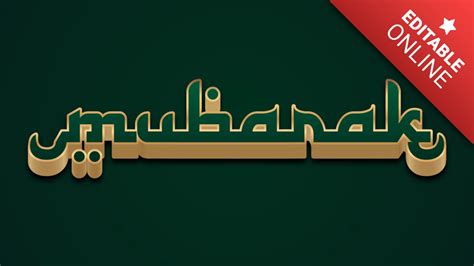
Arabic Calligraphy Font Generator. Web if you want to use arabic fonts online without downloading, you can use our text generator below. Web texture1 texture2 texture3 texture4 texture5 texture6 texture7 texture8 looking to add a touch of arabic flair to your artwork?.
Web currently, the arabic calligraphy generator uses the beautiful islamic scrips of thuluth, dewani and kufi. The following tool will transform. With a traditional character, our arabic fonts give your text a very original style. Web texture1 texture2 texture3 texture4 texture5 texture6 texture7 texture8 looking to add a touch of arabic flair to your artwork?. Web if you want to use arabic fonts online without downloading, you can use our text generator below. Click to find the best 57 free fonts in the arabic calligraphy style. Every font is free to. Web aref ruqaa is an arabic typeface that aspires to capture the essence of the classical ruqaa calligraphic style. Web looking for arabic calligraphy fonts?
The following tool will transform. With a traditional character, our arabic fonts give your text a very original style. Web aref ruqaa is an arabic typeface that aspires to capture the essence of the classical ruqaa calligraphic style. Web texture1 texture2 texture3 texture4 texture5 texture6 texture7 texture8 looking to add a touch of arabic flair to your artwork?. Web currently, the arabic calligraphy generator uses the beautiful islamic scrips of thuluth, dewani and kufi. Web if you want to use arabic fonts online without downloading, you can use our text generator below. Click to find the best 57 free fonts in the arabic calligraphy style. Every font is free to. Web looking for arabic calligraphy fonts?